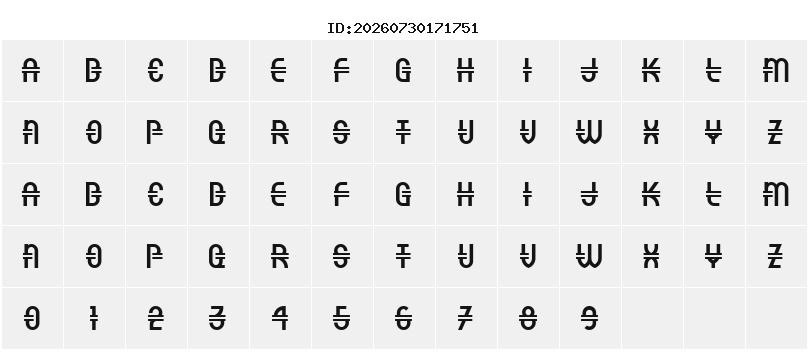
Luncheonette Capital Preview
• Font Name: Luncheonette Capital
• Full Font Name: Luncheonette Capital
About Luncheonette Capital.ttf
Luncheonette Capital.ttf is a modern, elegant sans-serif font designed for ultimate readability and visual harmony. Perfect for branding, headlines, web design, and print materials.